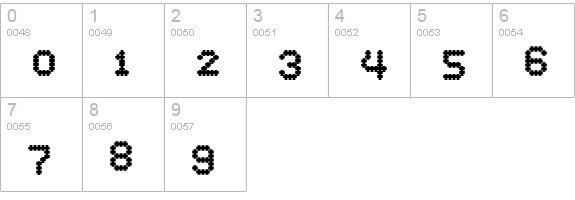
Crossover ExtraBold is an extra-heavy, attention-grabbing variant in the Crossover typeface family \xE2\x80\x94 well suited to high-impact headlines, posters, and bold branding.
Crossover ExtraBold font is a stunning display typeface that exudes power and modernity. With its thick and bold letterforms, this font commands attention and makes a bold statement in any design project. The strong, geometric shapes of Crossover ExtraBold give it a contemporary edge, perfect for conveying a sense of strength and confidence. What's even better is that Crossover ExtraBold is available for free download at FontsMarket.com. You can easily add this versatile font to your collection and use it in a variety of projects, from branding to posters to social media graphics. Don't miss out on this opportunity to elevate your designs with the impactful Crossover ExtraBold font.